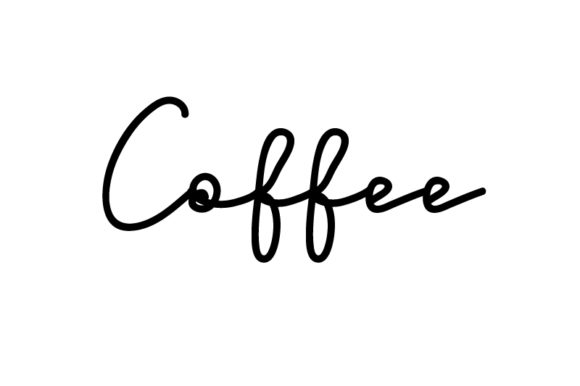
Ah, the eternal struggle of finding the perfect font for a project! I still remember the time I was working on a whimsical craft project, pouring my heart and soul into it, but stuck on choosing a font that would match its playful vibe. My client wanted something casual, yet charming – a font that would make their brand stand out without looking too serious. After hours of scouring through font libraries, I stumbled upon Fonument, a casual script font that instantly won my heart.
First Impressions: What I Love About Fonument
Fonument is indeed a charming script font, perfect for a wide variety of projects. Here’s what I love about it:
- ✨ Unique Character: Fonument has a distinct, hand-drawn feel that sets it apart from more traditional script fonts.
- ✅ Versatility: It works beautifully for both digital and print projects, from social media graphics to craft labels.
- 💫 Legibility: Despite its casual nature, Fonument remains highly legible, even at smaller sizes.
- 🎨 Creative Freedom: With its range of OpenType features and glyphs, Fonument offers plenty of room for creative experimentation.
While Fonument is an excellent choice for many projects, there are a few minor considerations to keep in mind:
- 🤔 Pairing Challenges: Like many script fonts, Fonument can be a bit finicky when paired with other fonts. Finding the right combination that complements its playful style might require some experimentation.
- ⚠️ Overuse of Swashes: While Fonument’s swashes and stylistic alternates are beautiful, overusing them can make text harder to read. It’s essential to balance decoration with legibility.
The Story Behind Fonument: Designer Inspiration
While the specific details about Fonument’s creation are scarce, it’s easy to imagine that its designer was inspired by the casual, effortless style of handwritten notes and street art. Perhaps they aimed to capture the essence of a carefree summer day, where everything feels light and playful. Whatever the inspiration, Fonument undoubtedly brings a unique charm to any project.
| Q: Is Fonument suitable for body text? | A: While Fonument is primarily designed for headings and titles, its legibility makes it possible to use for short paragraphs of body text. However, for longer texts, a more traditional font might be more appropriate. |
In conclusion, Fonument is a versatile and charming script font that can add a unique touch to a wide range of projects. Its combination of legibility, creativity, and casual style makes it an excellent choice for designers, crafters, and creative hobbyists alike. Whether you’re working on a digital project, crafting labels, or creating art, Fonument is sure to bring a smile to your face and a personal touch to your work.